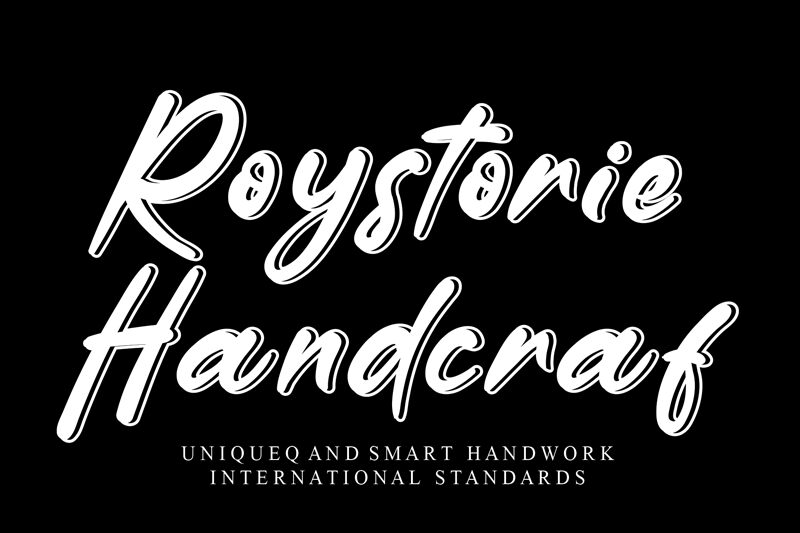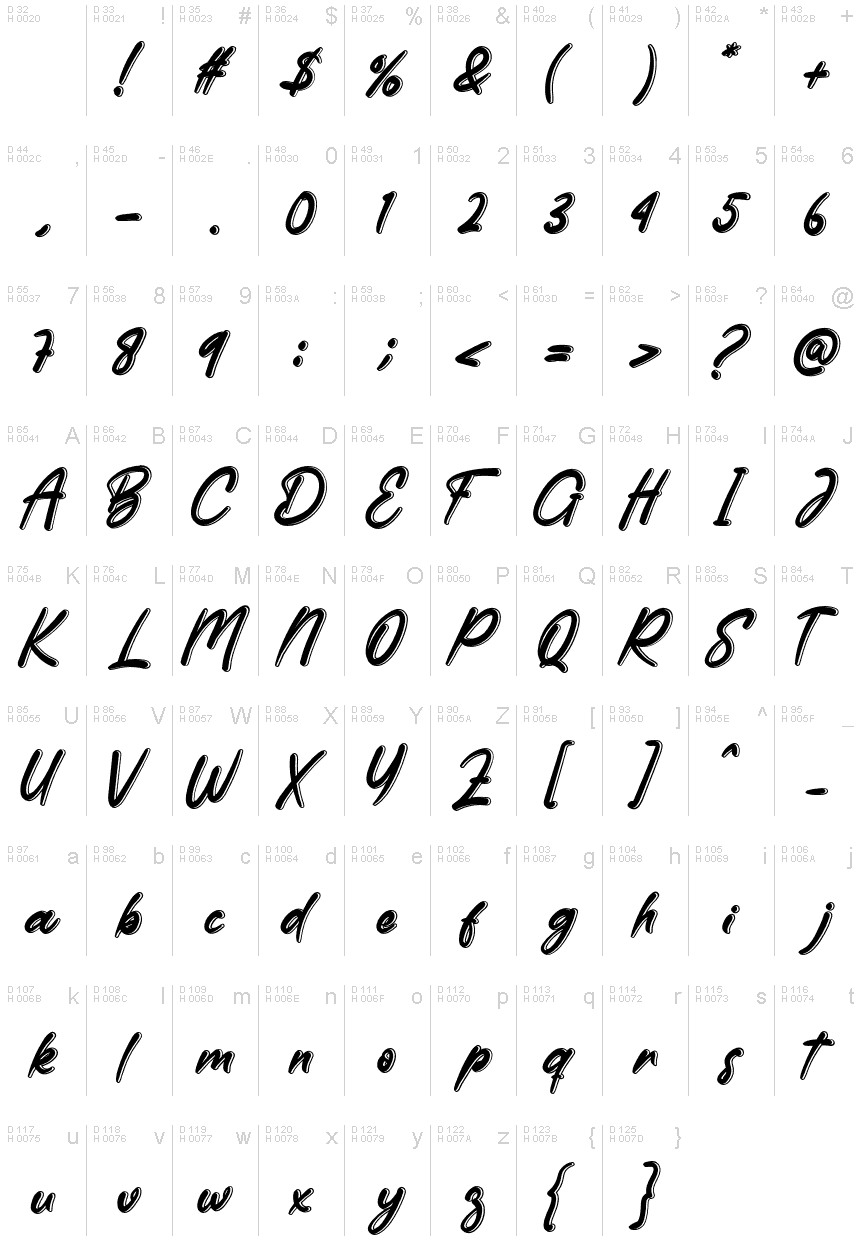
RoystorieHandcrafRegular
special creative products for you, our products will give you an extraordinary experience.
the latest style letters are perfect for wall displays, wedding invitations, social media post logos,
advertisements, product packaging, product designs, labels, photography, watermarks, invitations, stationery,
and any project that requires taste handwriting.